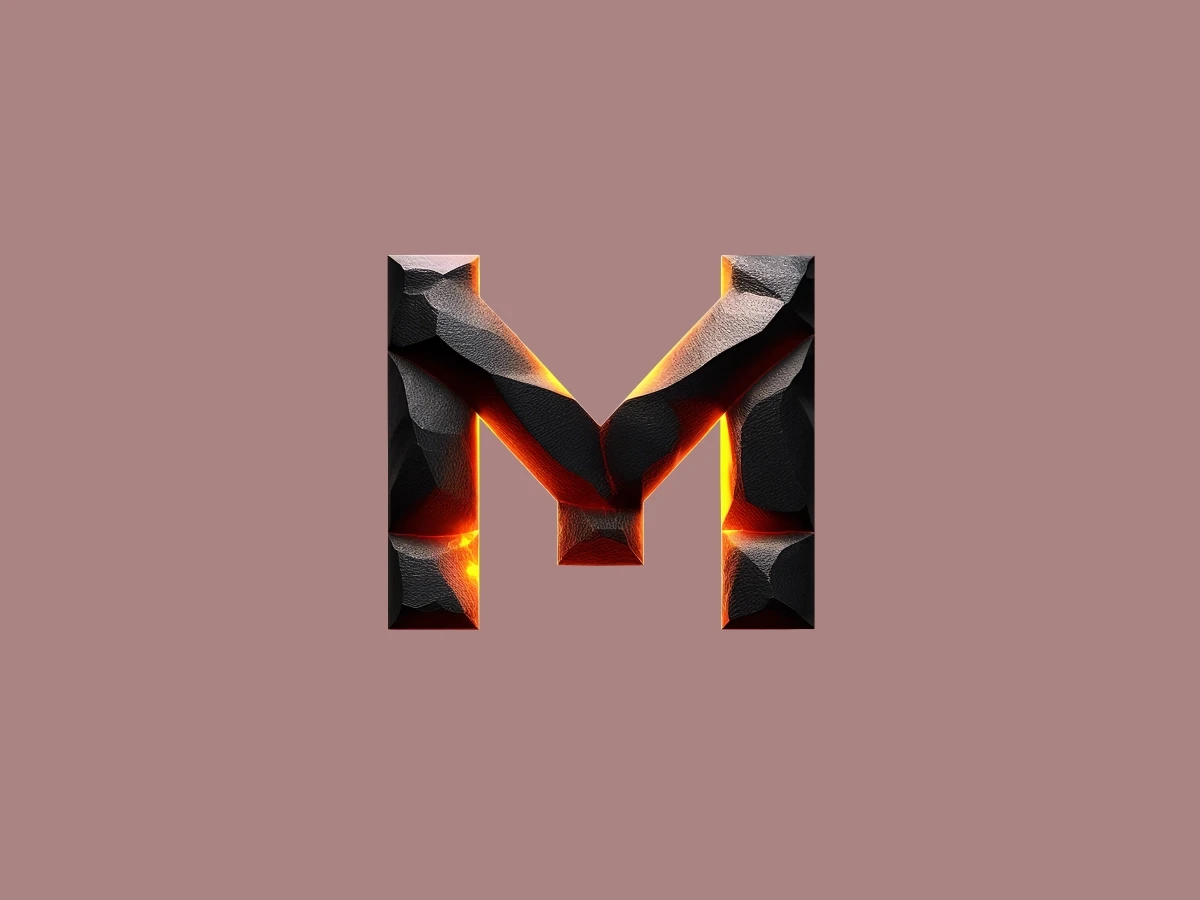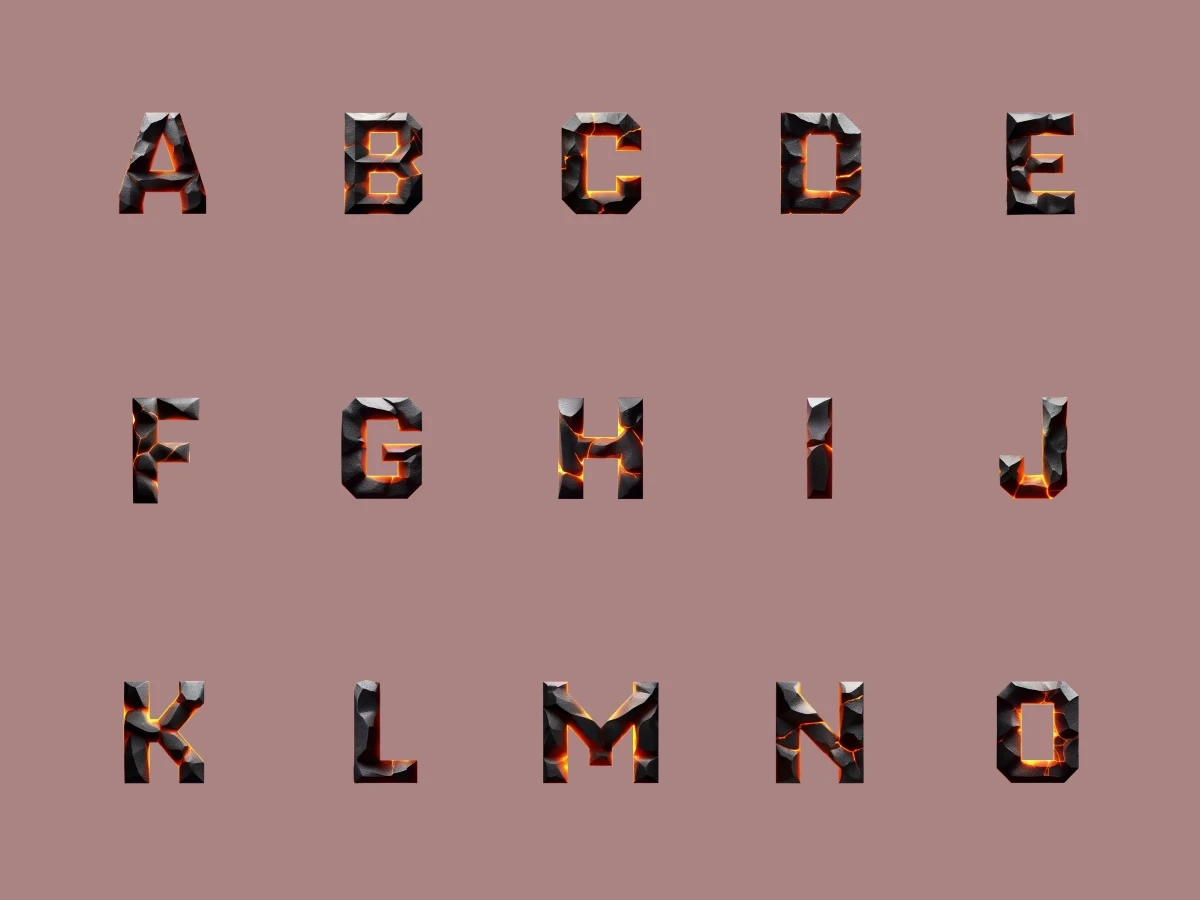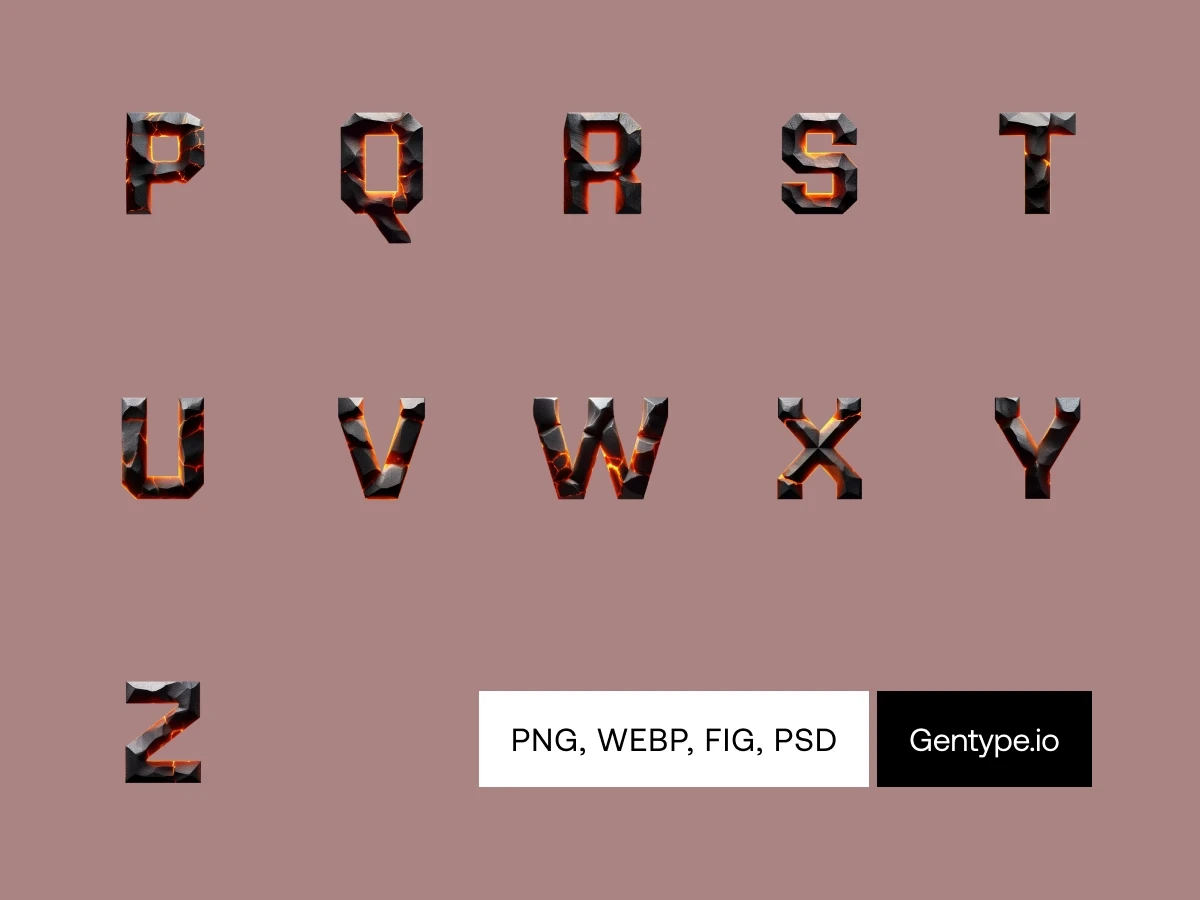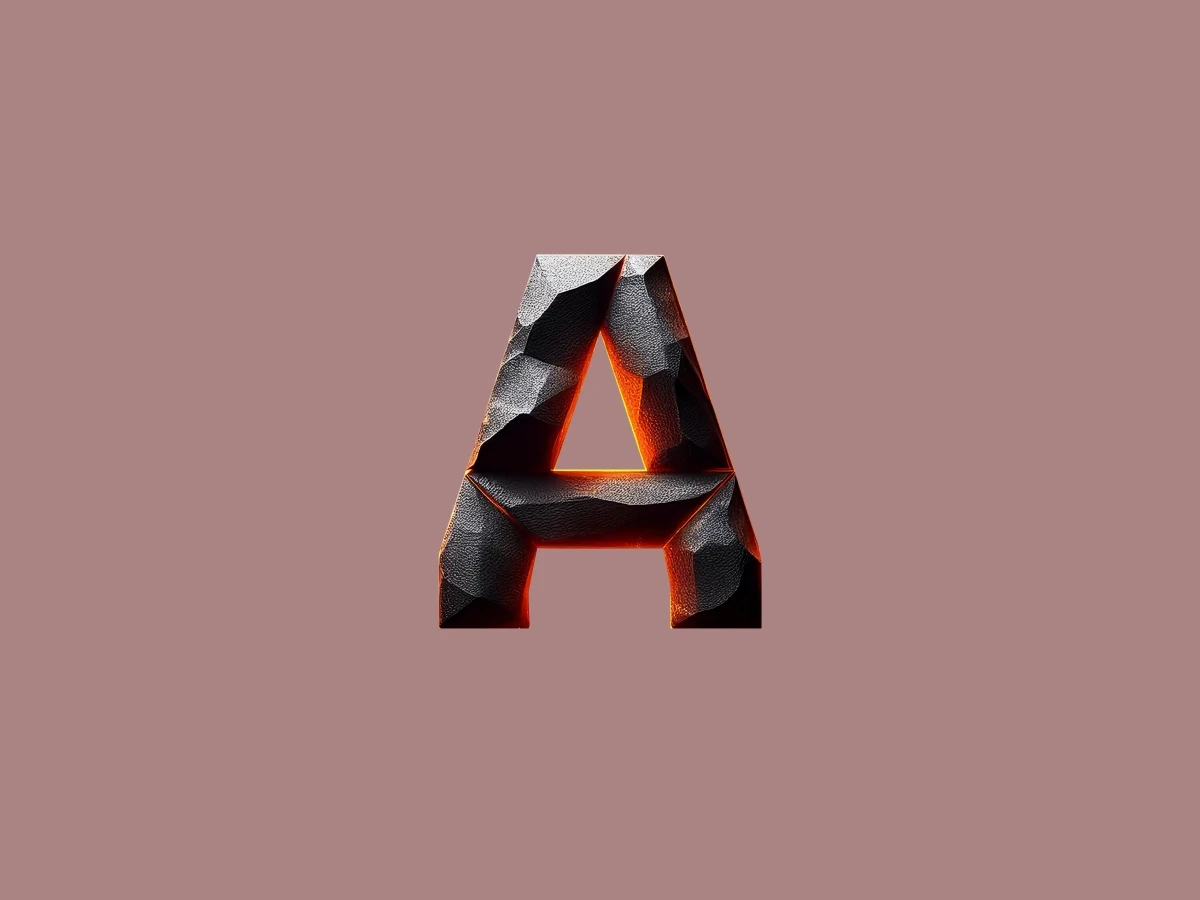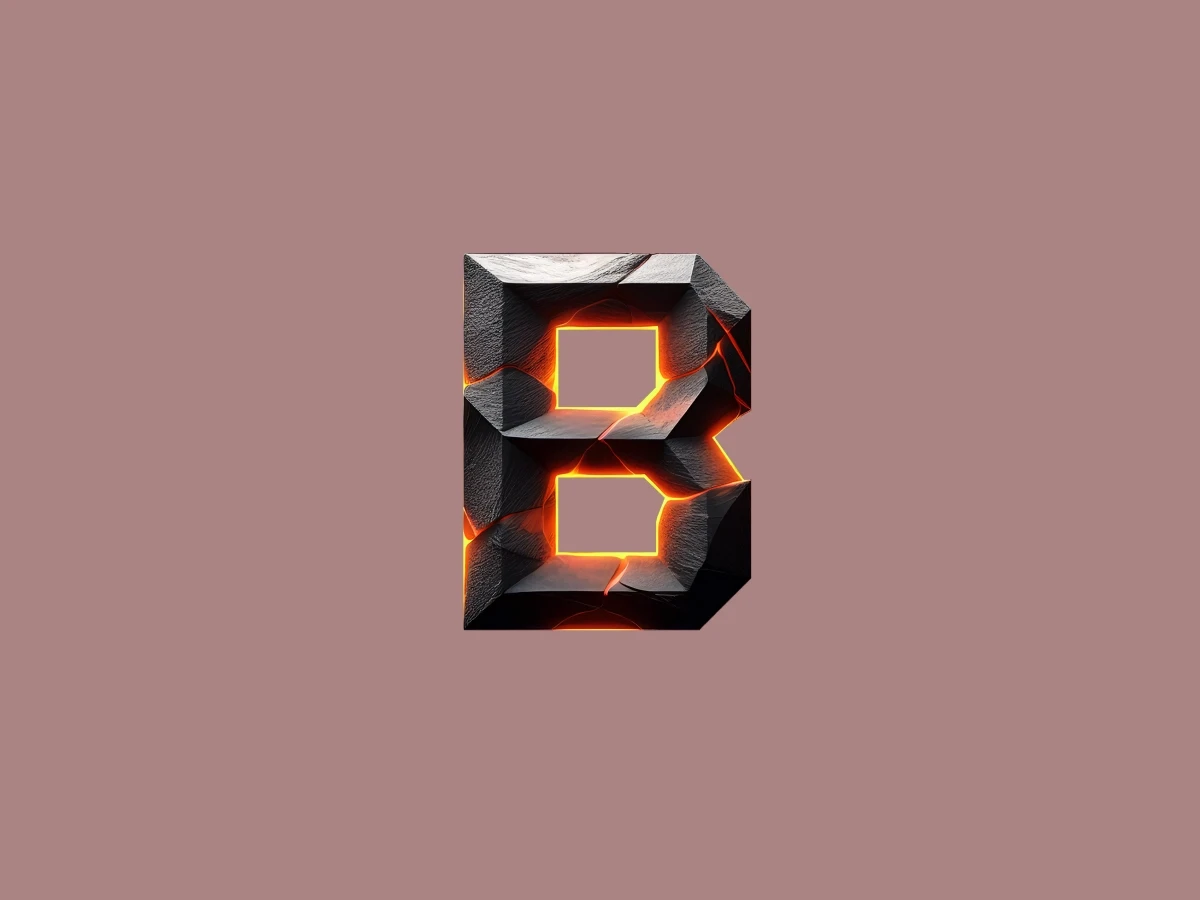
About the theme
Forged from the heart of nature, this theme blends the raw power of dark stone with veins of fiery lava, glowing like molten threads of pure energy. It’s got that untamed, volcanic vibe that screams intensity and edge. Perfect for making your designs pop with primal heat.